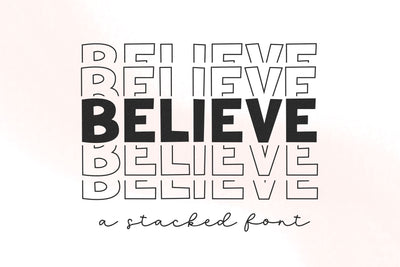
Believe - Stacked Font
Believe Stacked is a fun stacked font perfect for all of your designs!
Believe will save you a TON of time making your own stacked/mirrored designs! Just type with the font and your design is already stacked for you! The stacked outline is subtle for this font so that it does not interfere with the bold center letters.
This font is perfect for creating shirts, svg designs, stickers, procreate designs, instagram quotes and more!